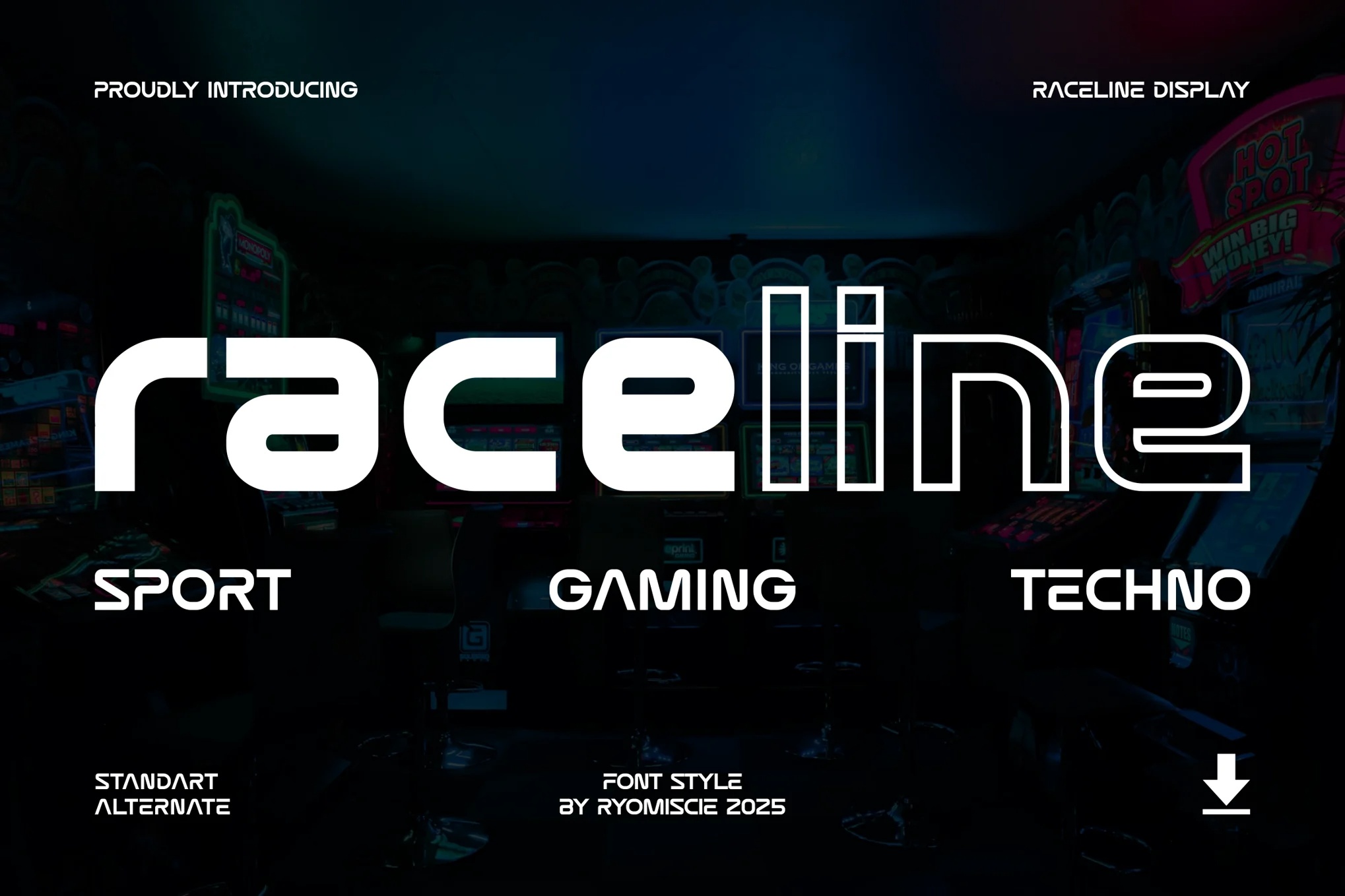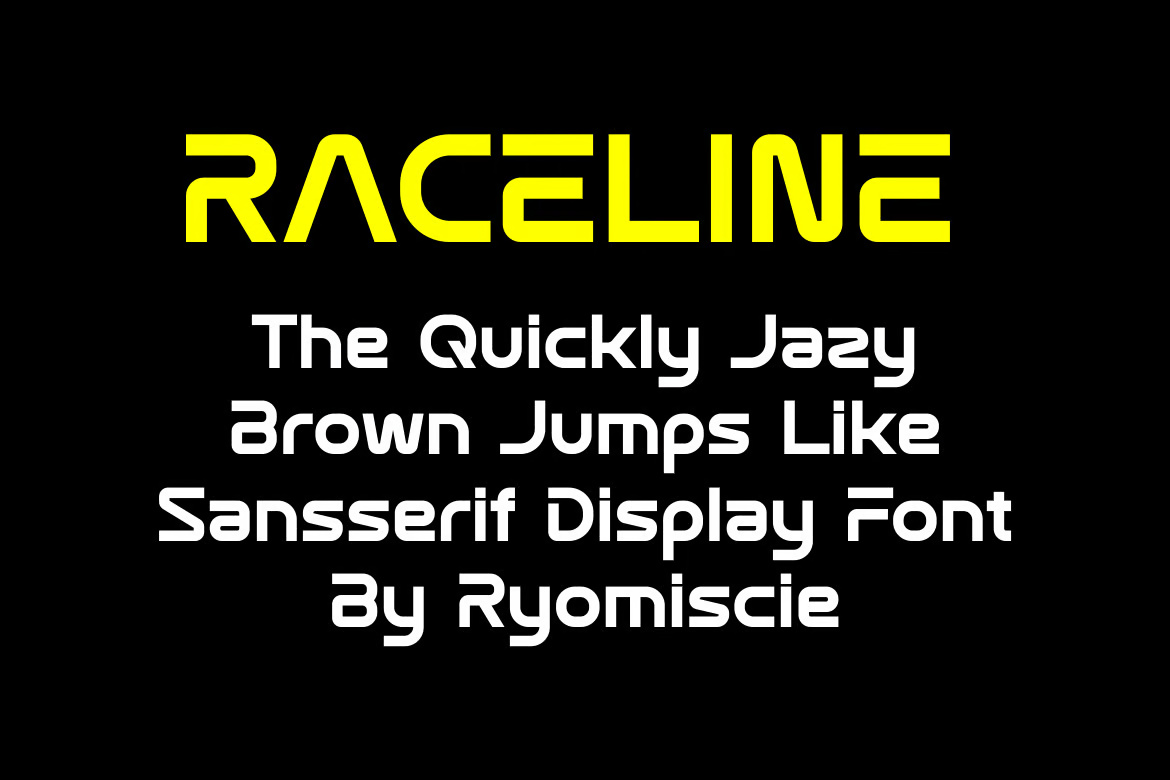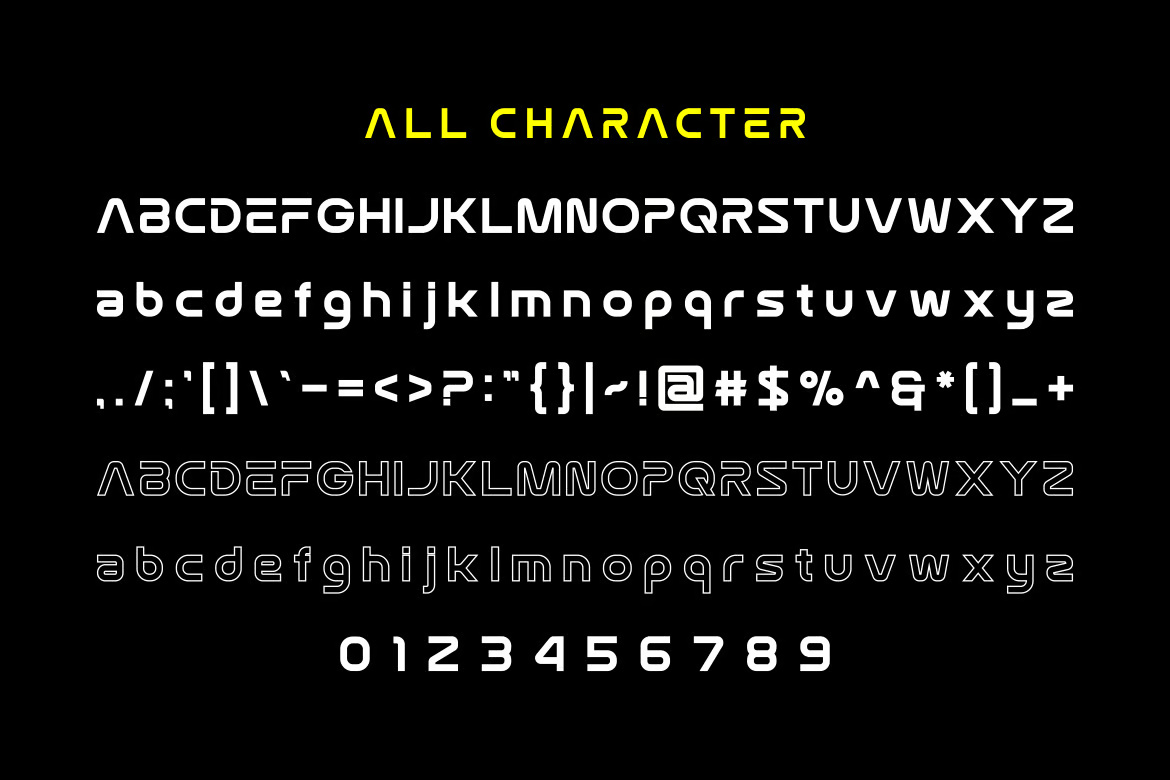
Raceline Sport And Display Font
Raceline Font is a bold, dynamic, and authentic display typeface designed to make a strong statement. With its sleek, modern aesthetic, this font is perfect for a variety of branding projects, including logos, t-shirt printing, esports designs, promotional materials, and more. Its clean lines and impactful style ensure it stands out in both digital and print media, making it a versatile choice for those seeking a contemporary, attention-grabbing design.
Raceline Sport And Display Sans-Serif Font
Raceline Sport And Display Font